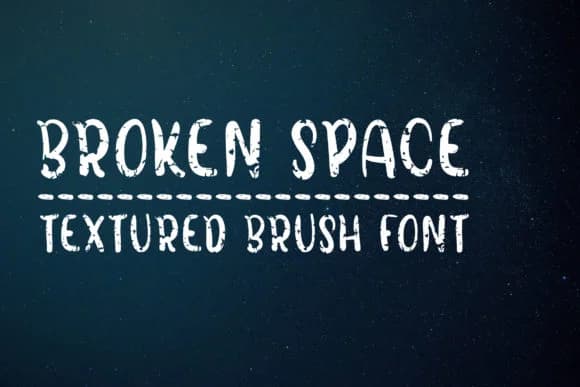
There's something raw and genuine about handwriting that feels like a real person's mark instead of a polished machine-made typeface. Broken Space, a script typeface by Dasagani, captures that unpolished warmth with letterforms that feel genuinely alive on the page. The rough, irregular spacing between letters gives each word real character without sacrificing legibility, and that imperfection is exactly what makes it work across so many design contexts.
This typeface shines for intimate projects that need personality and soul. Consider it for wedding invitation suites with a modern rustic edge that feels personal rather than corporate, thank you cards that read as if they were written by hand, small-batch product labels for artisanal goods and boutique makers, personalized gift tags with genuine charm, and even boutique shop signage where warmth matters more than polish. You can also put it to work on DIY craft packaging, book covers aimed at independent presses, or typography-focused social media graphics where the font itself becomes the visual focal point.
Pair Broken Space with a clean geometric sans-serif or minimal typeface for body text to create proper contrast and let the script breathe. The pairing lets both typefaces do their job without competing. Find it on Creative Fabrica to bring that handmade spirit and raw authenticity into your next creative project.
Broken Space Font is a script font that shines as a display or heading face. Pair it with a clean sans-serif or serif font for body text β the contrast creates a clear hierarchy while the two styles stay balanced and easy to read.
Broken Space Font
by Dasagani